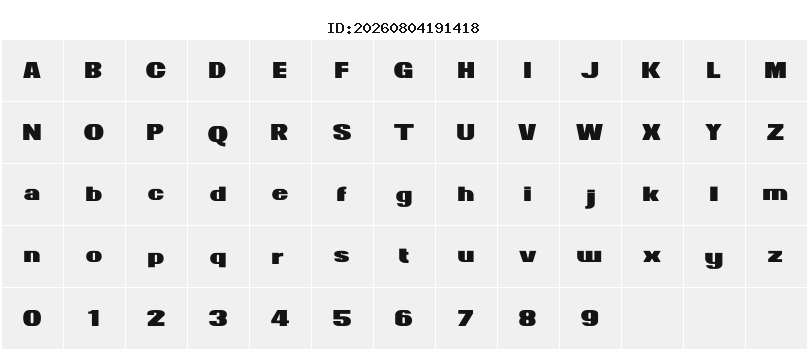
News of the World Preview
• Font Name: News of the World
• Font ID: News of the World
• Full Font Name: News of the World Wide
• PostScript Name: NewsoftheWorld-Wide
• Character Count: 490
• Designer: Dennis Ludlow
• Manufacturer: Sharkshock
About News of the World.ttf
News of the World.ttf is a modern, elegant sans-serif font designed for ultimate readability and visual harmony. Perfect for branding, headlines, web design, and print materials.